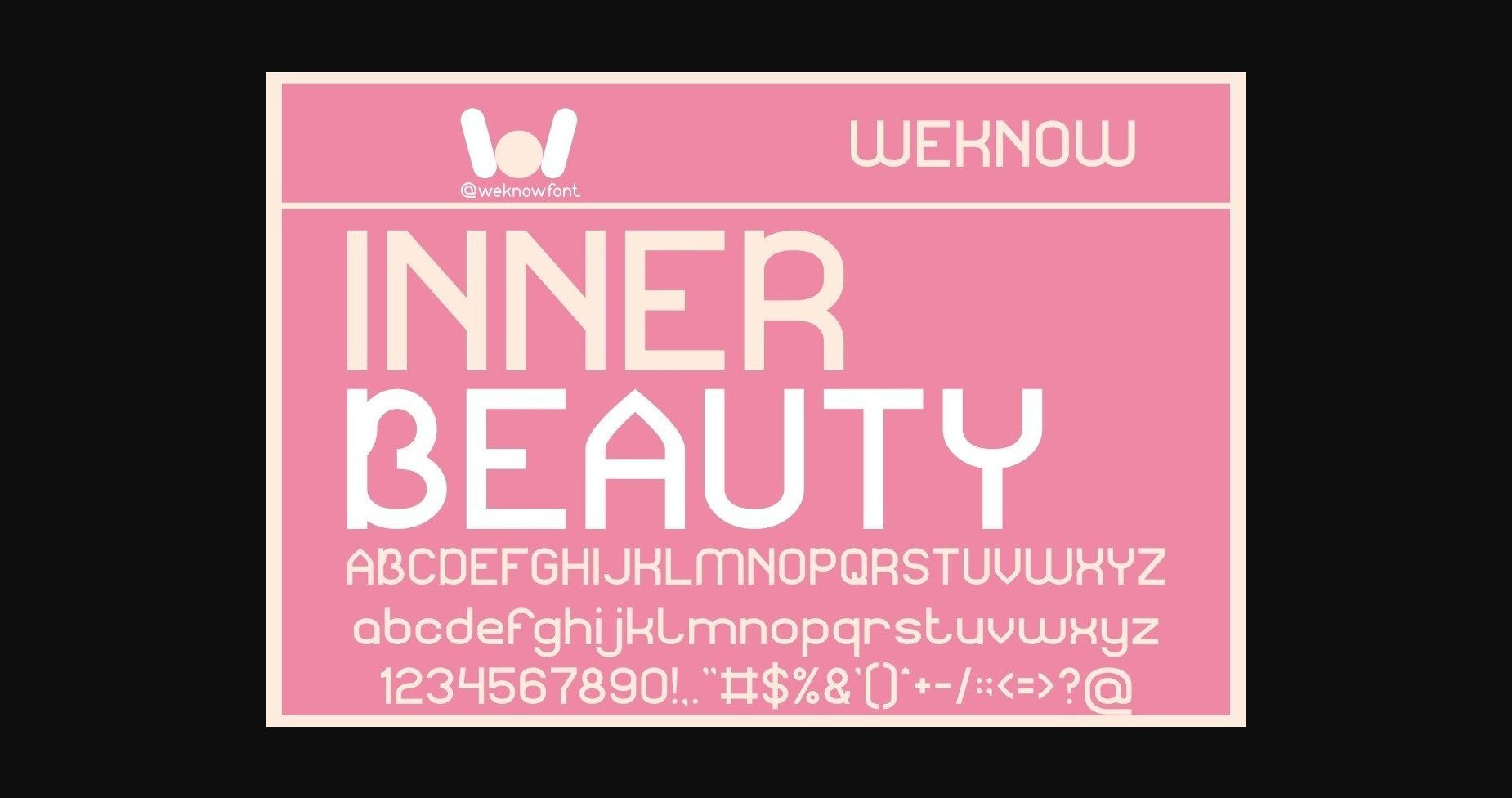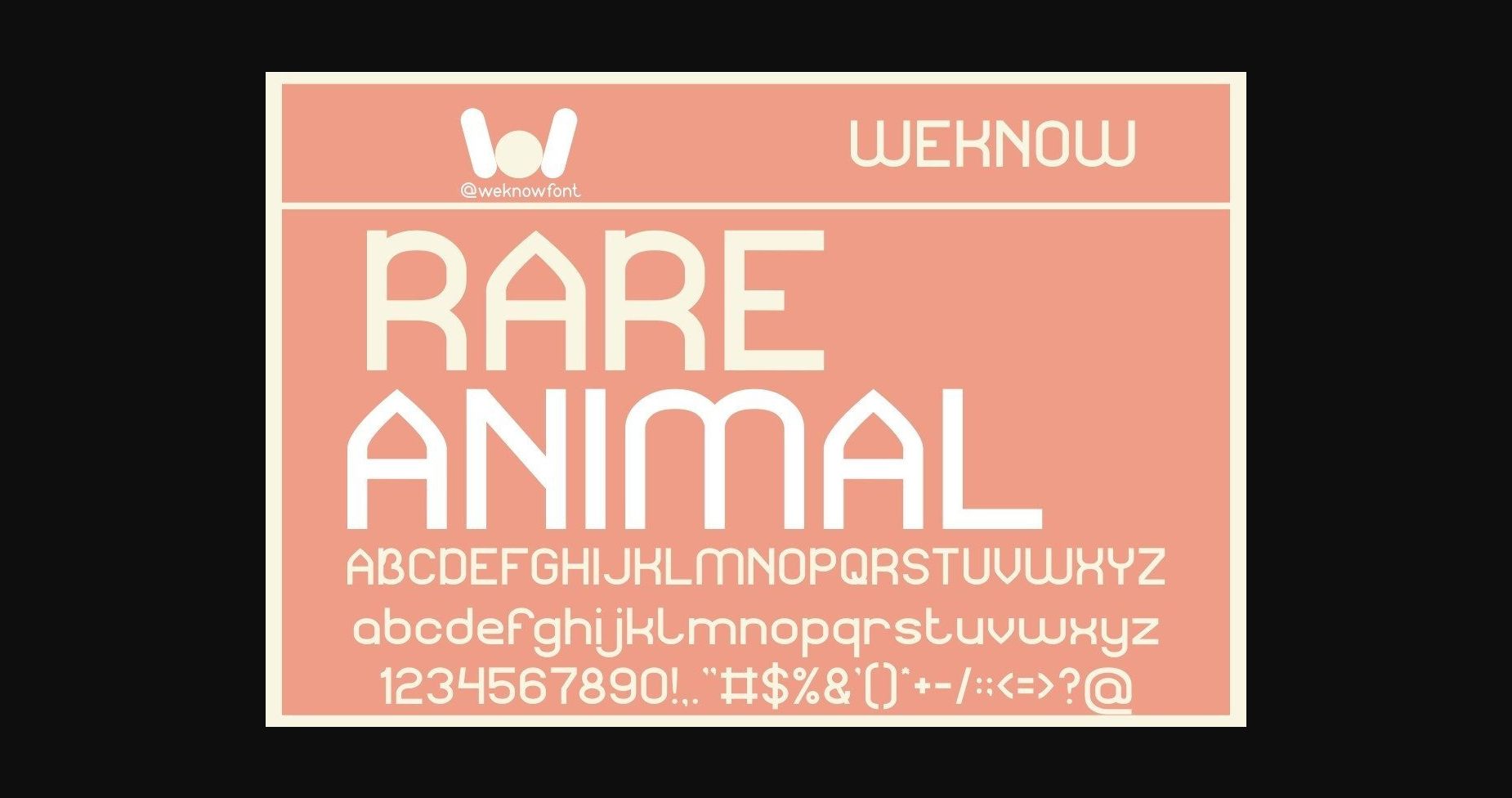
About Inner Beauty Font
Inner Beauty is a sans serif font suitable for a logo, logotype, headline font, in corporate identity, brand identity, apparel industry, poster, music, movie, game, magazine, book, comic, cartoon, YouTube, Instagram, website, or any of your creative design projects.